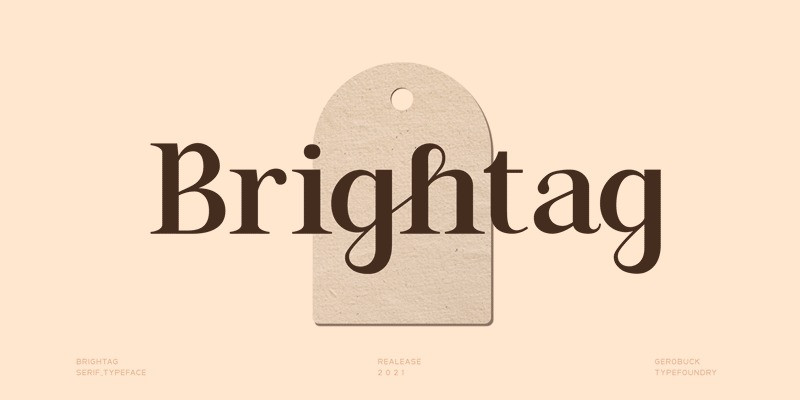
Brightag Font
Brightag Serif Font. This serif font is a work of art. It has a delicate, yet bold and confident style. Its graceful curves and swirls give it a modern and luxurious look. Its intricate details and exquisite lines make it a perfect choice for adding a touch of sophistication to any design.